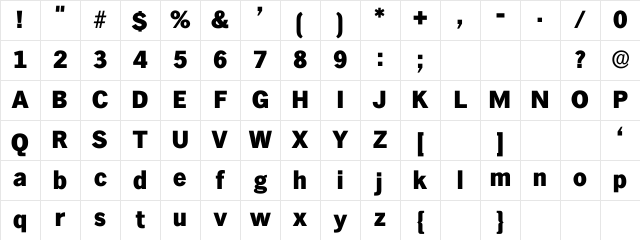
Indigo Regular
Design Context for Indigo
Indigo is a composed and adaptable typeface that performs quietly and consistently across a wide range of design contexts.
Pro Tip: Use Indigo in both headline and body roles to test its range before committing to a single application.